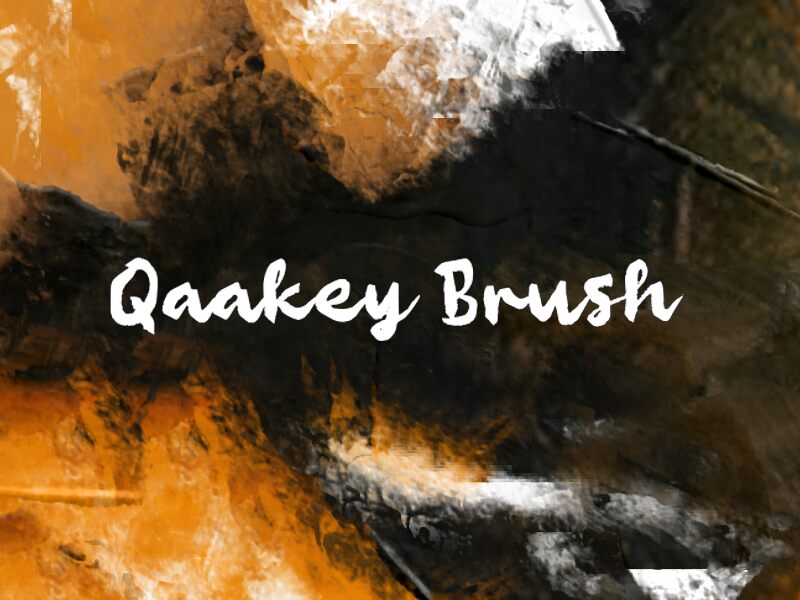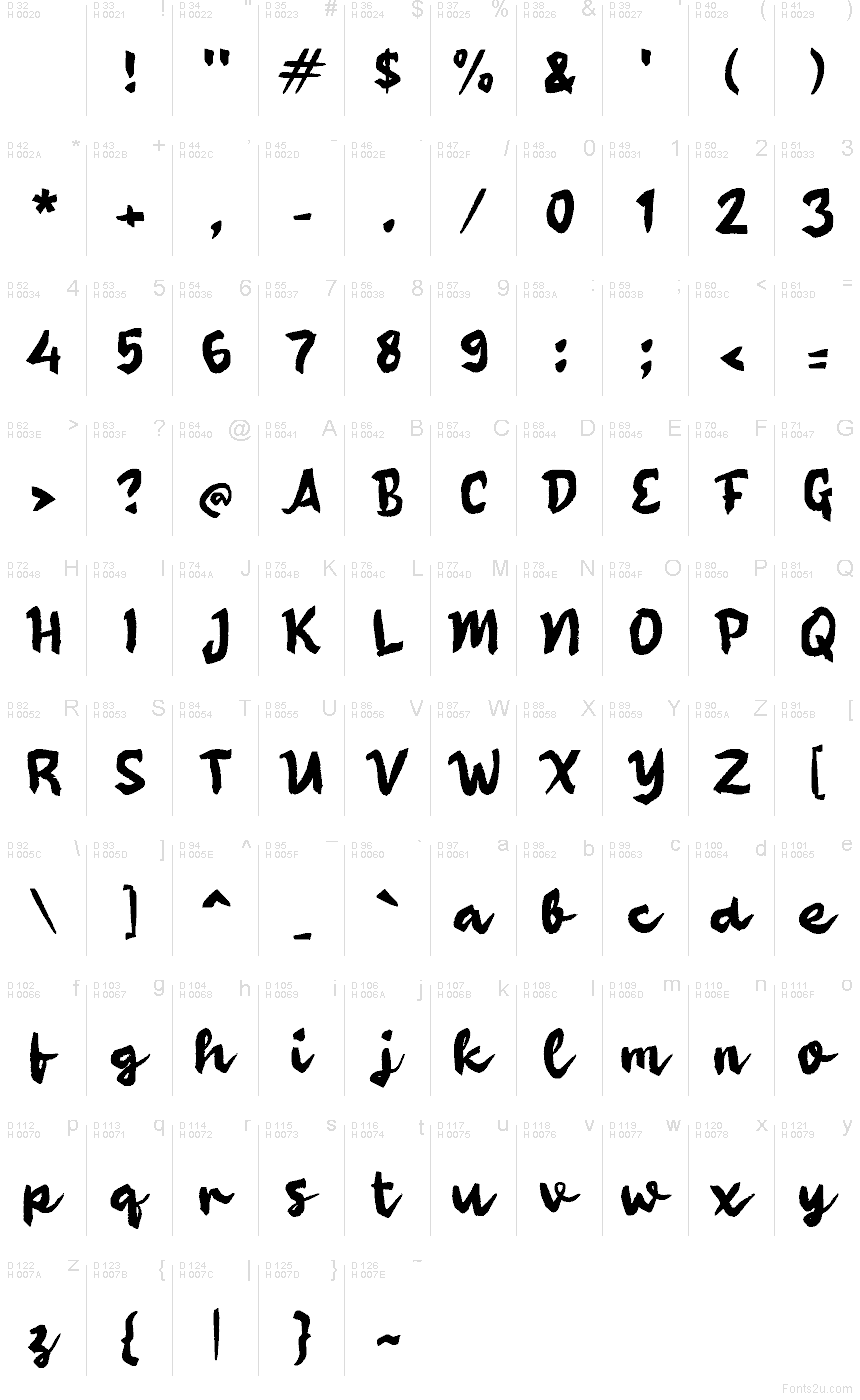
Qaakey Brush
Qaakey Brush font by wepfont.com is a free brush script typeface that captures the feel of thick, inky strokes dragged quickly across paper. Letters swing with an easy, handwritten rhythm, with slightly rough edges that keep it from feeling too polished or digital. It reads as bold and energetic rather than cute, giving headlines and short phrases a strong human presence.
Using Qaakey Brush, you can bring that hand-painted punch to posters, social media graphics, product packaging, merch, event flyers, and bold logo marks. This free font shines when used large, where its textured strokes can breathe, and pairs well with a clean geometric sans for body text to keep layouts balanced and readable.